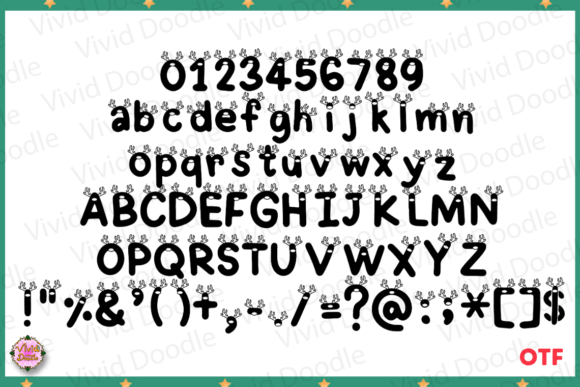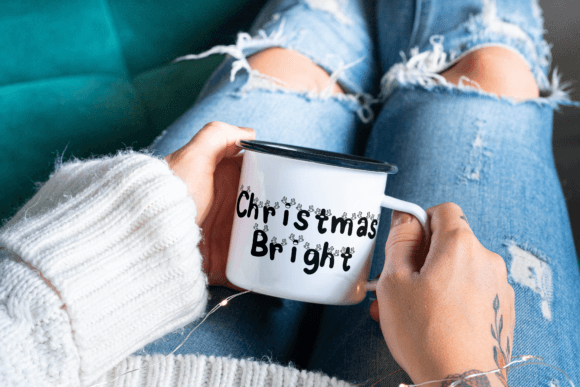
Introducing Christmas Bright 17: The Ultimate Festive Font for Your Holiday Creations
Are you ready to add a touch of festive magic to your designs and crafts? Look no further than Christmas Bright 17, a unique hand-lettered font that embodies the warmth and joy of the holiday season. This newly crafted font is specifically designed to help you create stunning holiday-themed projects that will leave a lasting impression on your audience.
Unleash the Spirit of the Season with Christmas Bright 17
Christmas Bright 17 is more than just a font – it’s an experience. With its enchanting and exclusive design, this font is sure to transport you and your audience to a world of festive cheer and merriment. Whether you’re a designer, crafter, or DIY enthusiast, this font is the perfect addition to your holiday toolkit.
One of the standout features of Christmas Bright 17 is its adaptability. While it’s specifically designed for the holiday season, its versatility makes it suitable for a wide range of projects and applications. From holiday cards and invitations to festive packaging and decorations, this font can elevate any endeavor and add a touch of seasonal charm.
What Makes Christmas Bright 17 So Special?
So, what sets Christmas Bright 17 apart from other fonts? Here are just a few reasons why this font is a must-have for designers and crafters:
- Hand-lettered design: Each letter has been carefully crafted by hand to create a unique and distinctive look that’s full of character and personality.
- Festive and fun: Christmas Bright 17 is designed to evoke the spirit of the holiday season, with a playful and cheerful vibe that’s sure to put a smile on your face.
- High-quality and versatile: This font is perfect for a wide range of projects, from digital designs to print materials, and can be used for both personal and commercial use.
How to Use Christmas Bright 17 in Your Projects
Now that you’re excited about Christmas Bright 17, let’s explore some ways you can use this amazing font in your projects:
- Holiday cards and invitations: Create stunning holiday cards and invitations that will impress your friends and family.
- Festive packaging: Add a touch of seasonal charm to your product packaging with Christmas Bright 17.
- Decorations and signage: Use this font to create eye-catching decorations and signage for your holiday events or parties.
- Digital designs: Incorporate Christmas Bright 17 into your digital designs, such as social media graphics, blog posts, and email newsletters.
Get Ready to Make Your Holiday Creations Shine
Christmas Bright 17 is the perfect addition to your holiday design toolkit. With its unique hand-lettered design, festive and fun vibe, and versatility, this font is sure to help you create stunning holiday-themed projects that will leave a lasting impression on your audience.